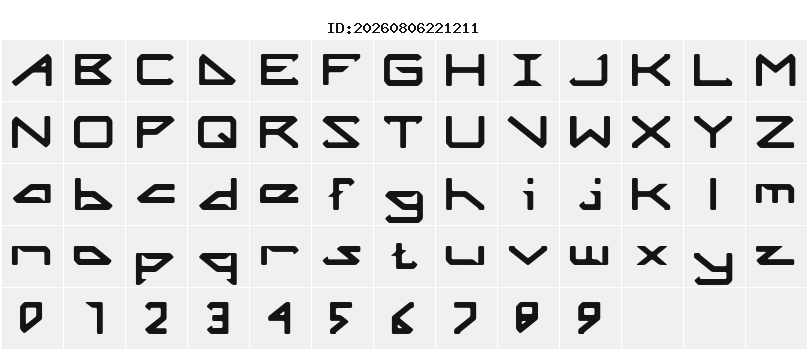
Octicity Preview
• Font Name: Octicity
• Full Font Name: Octicity
About Octicity.ttf
Octicity.ttf is a modern, elegant sans-serif font designed for ultimate readability and visual harmony. Perfect for branding, headlines, web design, and print materials.